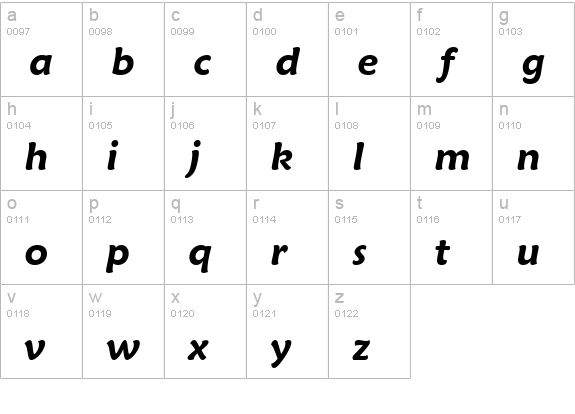
Maiandra Demi Bold Italic GD is a sub-bold, structured, italic variant in the Maiandra typeface family \xE2\x80\x94 well suited to sub-headlines and emphasised passages.
Maiandra Demi Bold Italic GD font is a captivating and versatile typeface that exudes elegance and sophistication. With its gracefully curved letters and distinctive italicized style, this font is perfect for adding a touch of flair and personality to any design project. The free Maiandra Demi Bold Italic GD font offers a harmonious blend of boldness and finesse, making it an ideal choice for headlines, titles, and branding materials. Its unique character and subtle, yet impactful, presence make it a standout choice among other fonts. This font is freely available to download at FontsMarket.com, a trusted source for high-quality fonts. Offering a seamless user experience, FontsMarket.com allows designers and typographers to access a vast collection of fonts, including the coveted Maiandra Demi Bold Italic GD font. Whether you're working on a professional presentation, a creative project, or simply looking to add a touch of sophistication to your personal documents, Maiandra Demi Bold Italic GD font is the perfect companion. Its versatility and captivating design will surely capture the attention of your audience and elevate your work to new heights. Download the Maiandra Demi Bold Italic GD font now for free at FontsMarket.com and unlock the potential to create stunning and impactful designs. Let this font be the catalyst for your creativity and watch as your ideas come to life with every stroke of the keyboard.